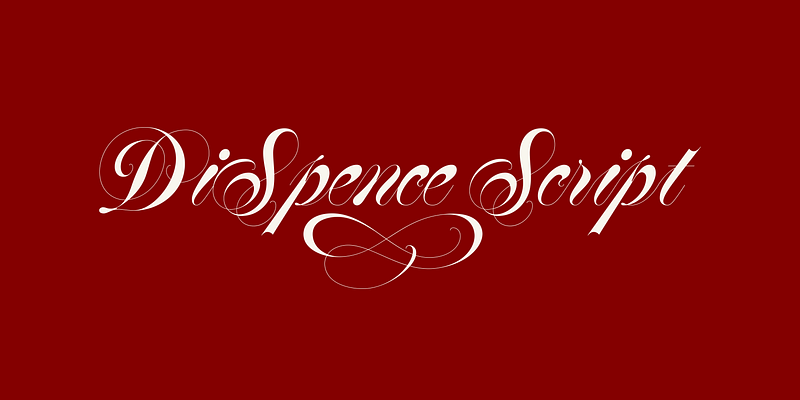
DiSpence Script Font Free Download is an elegant and expressive handwritten script typeface that brings a sense of warmth and personality to your typography. With its fluid strokes, artistic flourishes, and calligraphic style, this font is perfect for branding, invitations, social media graphics, wedding stationery, and any project that requires a sophisticated, handcrafted feel.
DiSpence Script Font Free Download offers beautiful, flowing letterforms with natural, organic curves that make it ideal for designs that need a personal, artistic touch. Whether you're creating logos, greeting cards, or creative promotional materials, this font adds a unique charm and elegance to your work.
It pairs beautifully with both serif and sans-serif fonts, allowing you to create dynamic typographic compositions for a wide variety of design applications.